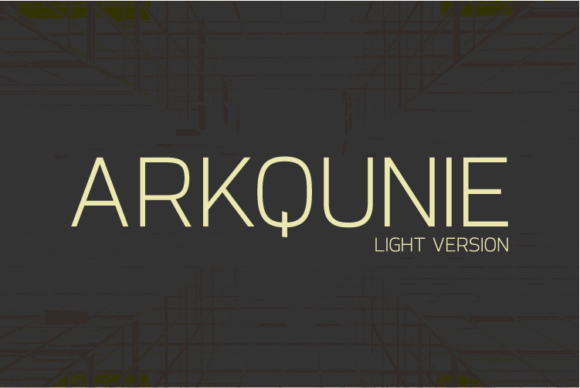
The Perfect Blend of Creativity and Flexibility
Enter the Arkqunie Light Font, a geometric sans serif typeface that’s designed to be flexible and adaptable. Whether you’re creating headlines, postcards, business cards, or logos, this font has got you covered. Its unique features and clean lines make it the perfect choice for designers who want to add a touch of sophistication and elegance to their work.
Arkqunie Light Font Key Features
- Font Family: Arkqunie Light, a sleek and modern sans-serif font designed for digital use.
- Character Set: Supports a wide range of languages, including Latin, Cyrillic, Greek, and many more, with over 1000 glyphs.
- Unique Characteristics: Features a distinctive, rounded sans-serif design with a focus on legibility and readability, making it ideal for body text and display headings.
Arkqunie Light Font Review
Overall, I have mixed feelings about the Arkqunie Light Font. While it’s a unique and stylish addition to any design project, it’s not without its limitations.
- Uniqueness: Arkqunie Light is definitely a conversation starter. Its eclectic design elements make it stand out from more traditional fonts.
- Legibility: Despite its unconventional style, the font is surprisingly easy to read, especially in larger font sizes.
- Expressiveness: The font’s irregular shapes and letterforms lend themselves well to conveying a sense of playfulness and creativity.
- Readability at Small Sizes: While the font is legible at larger sizes, it becomes increasingly difficult to read when reduced to smaller font sizes.
- Lack of Consistency: Some letterforms seem more polished than others, which can create an uneven visual experience.
Overall, I’d recommend the Arkqunie Light Font for projects where a unique, eye-catching design is a priority. However, for more straightforward or formal projects, you may want to consider a more traditional font.
For optimal results, use Arkqunie Light Font in combination with other fonts that complement its light and elegant style. Also, experiment with different font sizes and styles to achieve the desired visual effect.
Arkqunie Light Font is ideal for use in:
– Headings and titles
– Logos and branding materials
– Infographics and visualizations
– Web and mobile app design
Alternatives to Arkqunie Light Font
Lato Light Font
Lato Light Font is a clean and modern sans-serif font. It is ideal for use in headings, titles, and body text where a light and airy feel is desired. Lato Light Font has a more rounded feel compared to Arkqunie Light Font, making it suitable for designs that require a softer touch.
Montserrat Light Font
Montserrat Light Font is a geometric sans-serif font that is perfect for use in urban and modern designs. It is ideal for headings and titles where a strong and modern feel is desired. Montserrat Light Font has a more angular feel compared to Arkqunie Light Font, making it suitable for designs that require a strong and edgy look.
Open Sans Light Font
Open Sans Light Font is a clean and modern sans-serif font. It is ideal for use in body text where a light and readable feel is desired. Open Sans Light Font has a more neutral feel compared to Arkqunie Light Font, making it suitable for designs that require a clean and minimal look.